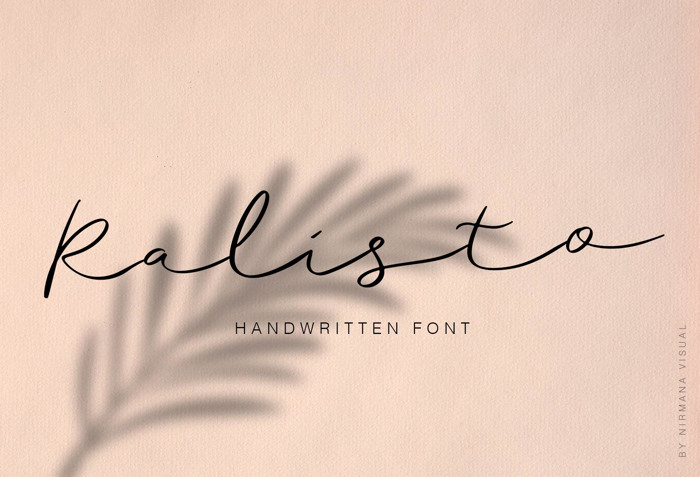
Ralisto Font
Ralisto Handwritten font,
You can use this font for watermark on photography, signature or
signature logo design, quotes, album cover, business card, and many
other design project.